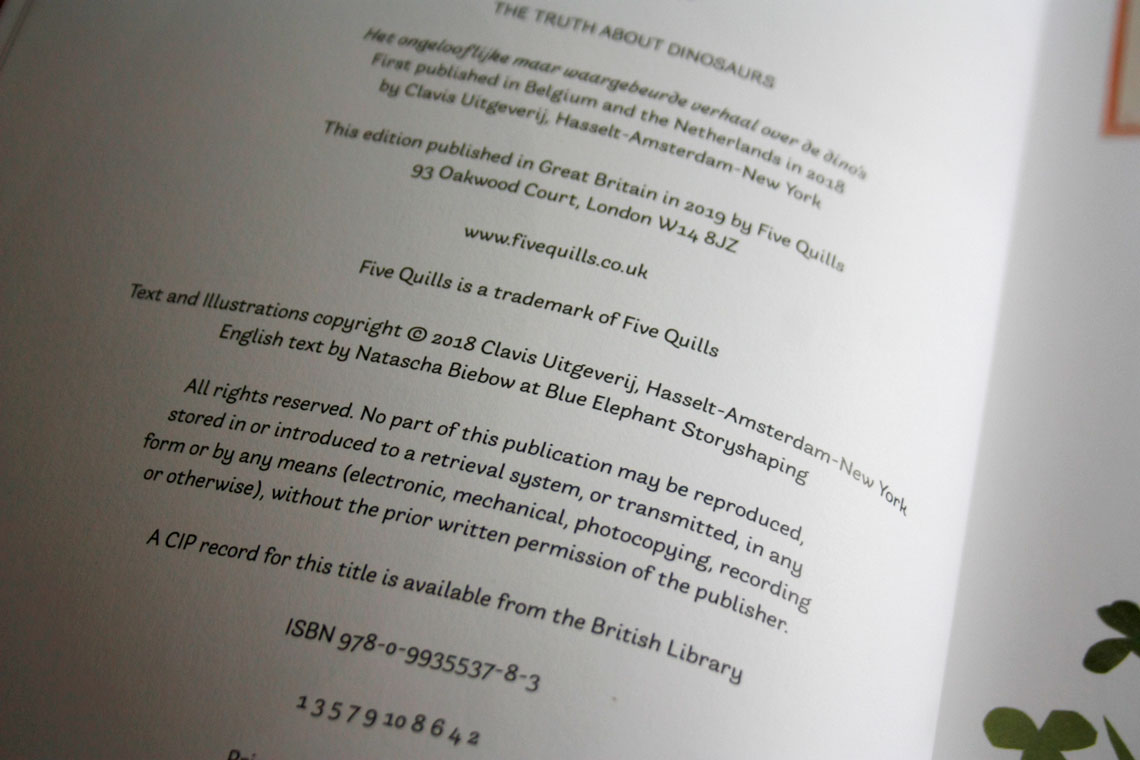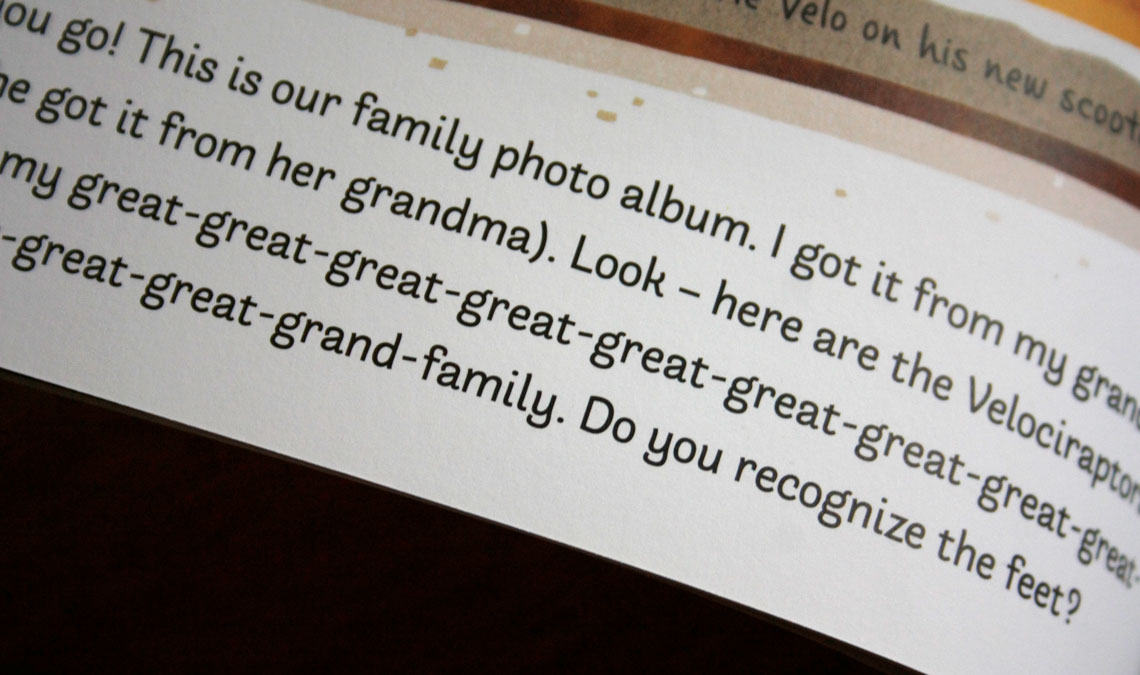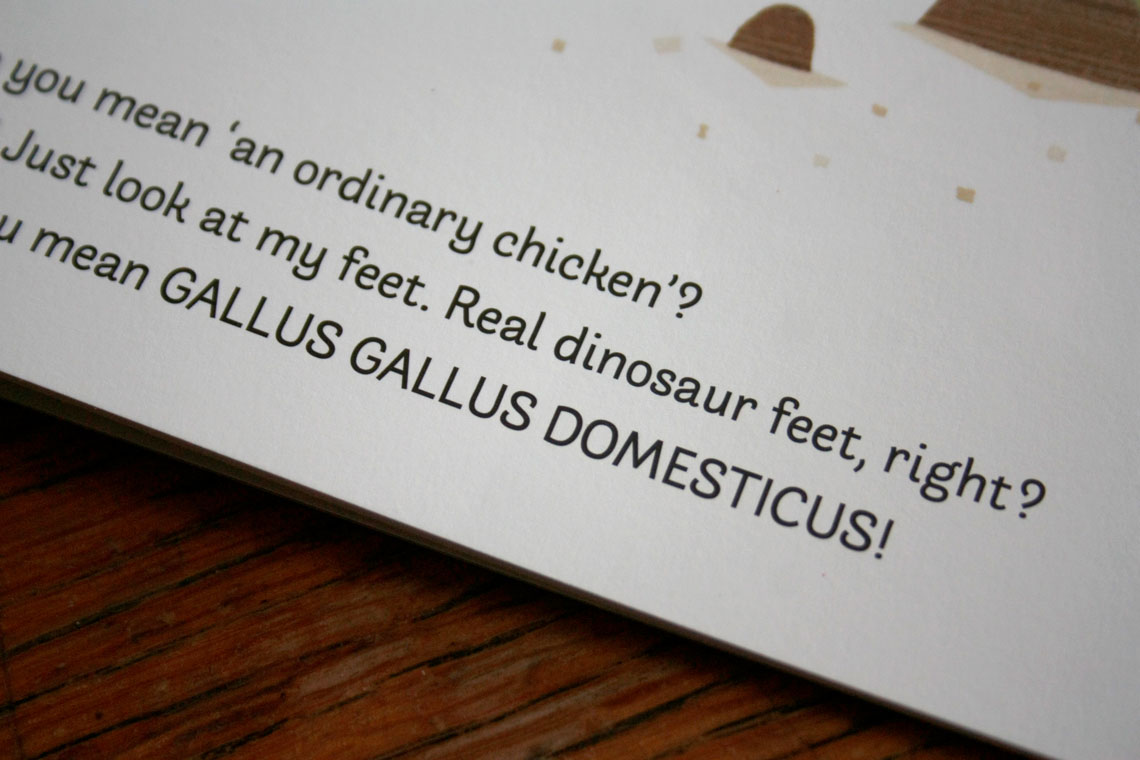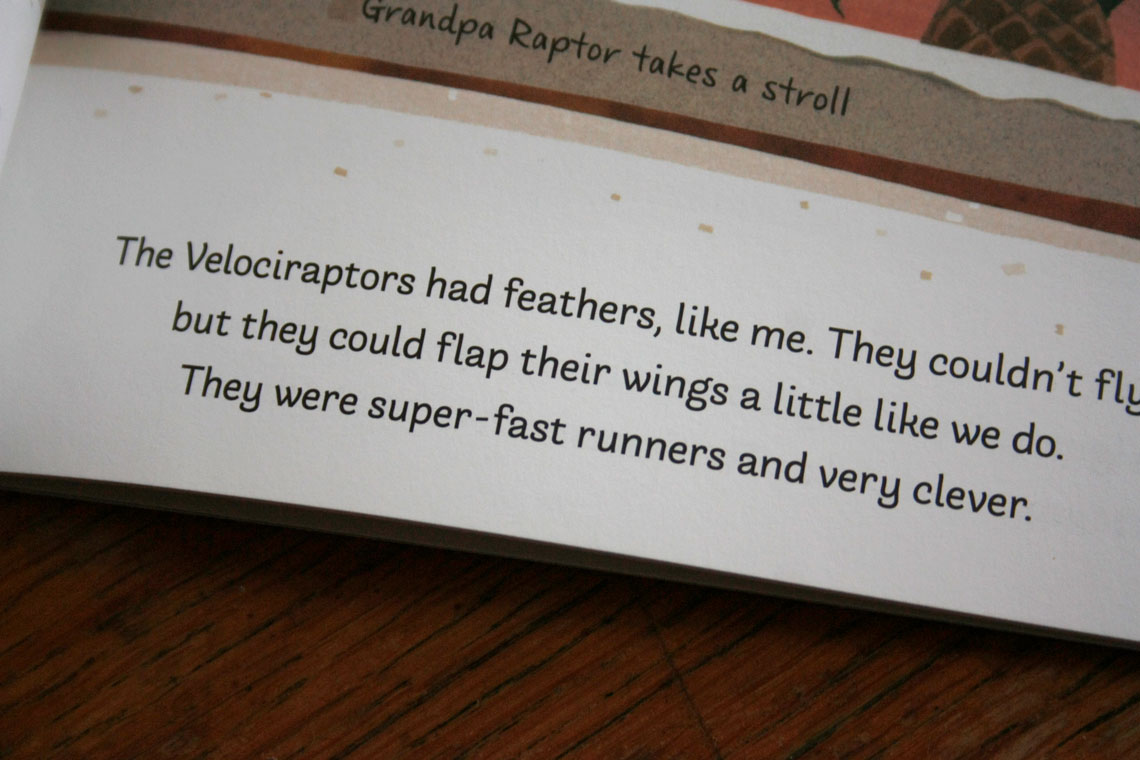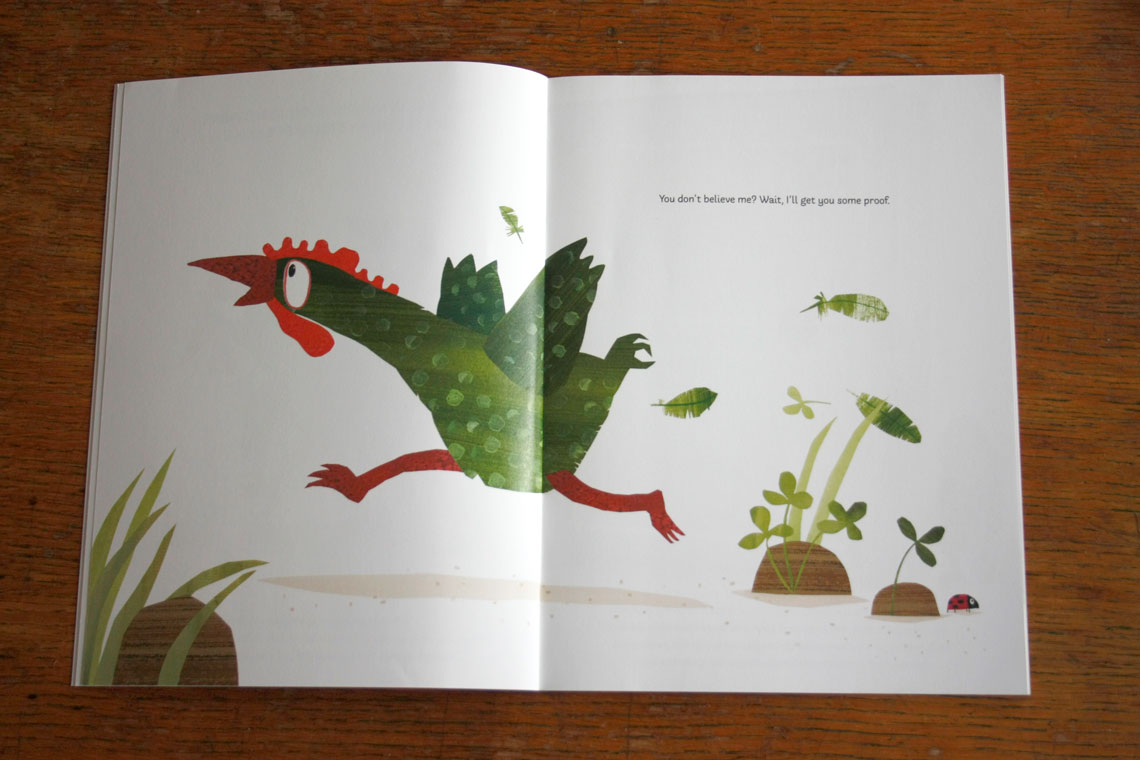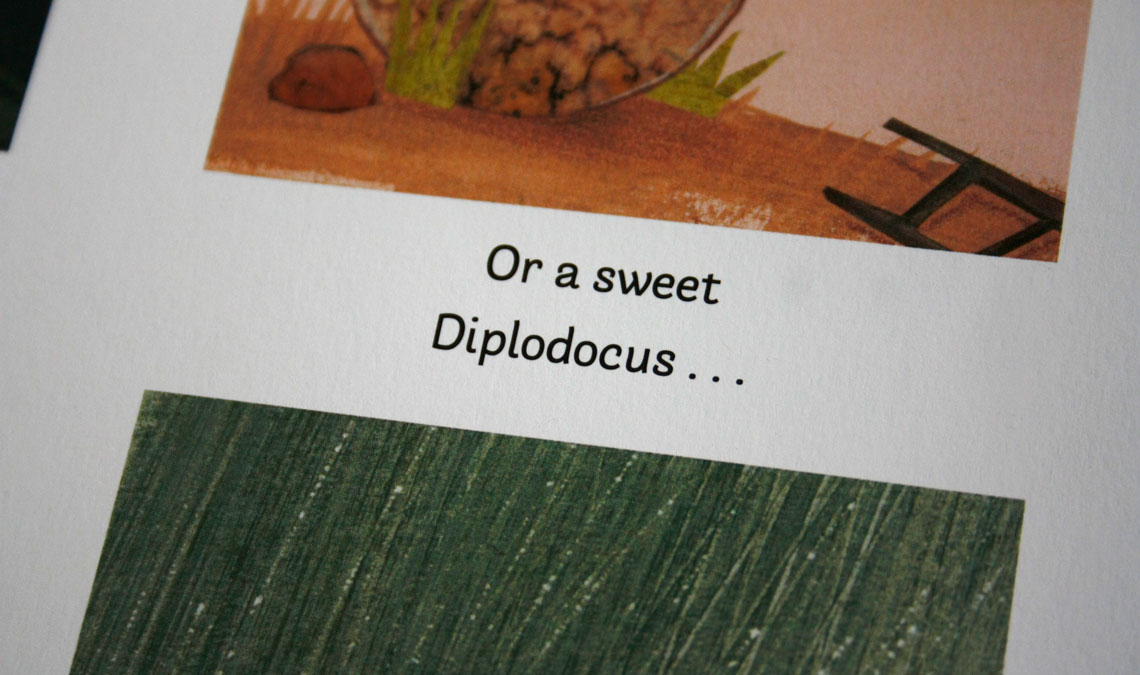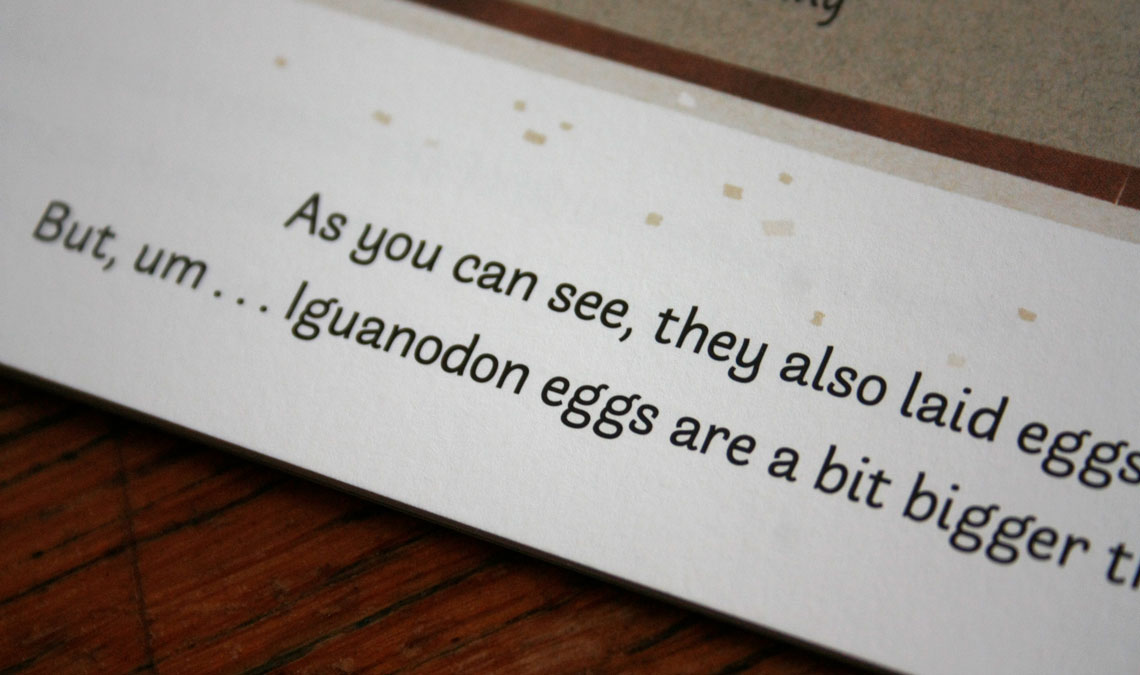
“The Truth About Dinosaurs” book
Arlette in use in Guido van Genechten’s picture book about chickens and dinosaurs and connectedness.
Arlette, an organic and curvy typeface designed by Pilar Cano and Ferran Milan, has been used in the English edition of the book The Truth About Dinosaurs, with illustrations and concept by Guido van Genechten, and published by Five Quills. What starts out as a mysterious misunderstanding ends by shedding a fun light on connectedness.
The design of the English translation was based on the original design from the Belgium & Neatherlands publisher Clavis Uitgeveri. The main difference is the typographic choice, implemented by book designer Becky Chilcott: “Arlette complimented the quirky style of the artwork perfectly and is a little bit different whilst still being clear, legible, and easy for children to read. I was also attracted to using it since the book text jumps from capitals to lowercase, and Arlette’s style and design in both of these suited the book well and made it the perfect choice.” Set in a generous size, Arlette is perfect for young adults or, in this case, beginners who read alone or with some help.